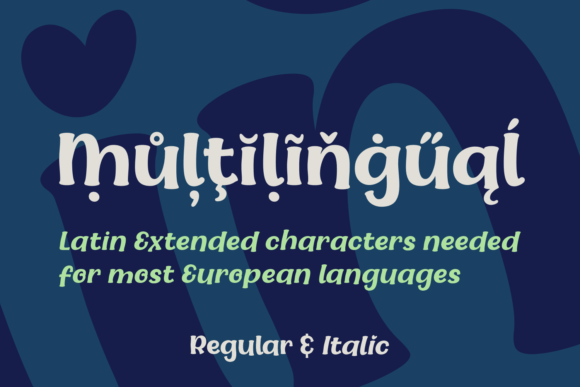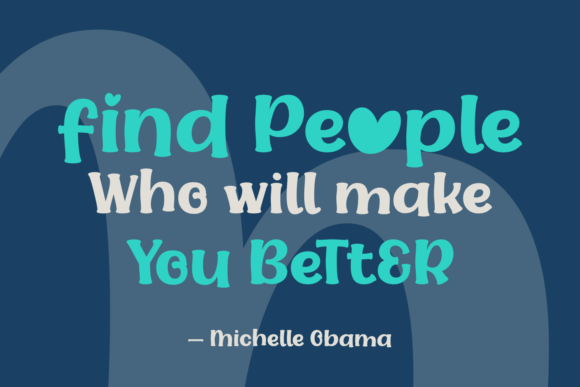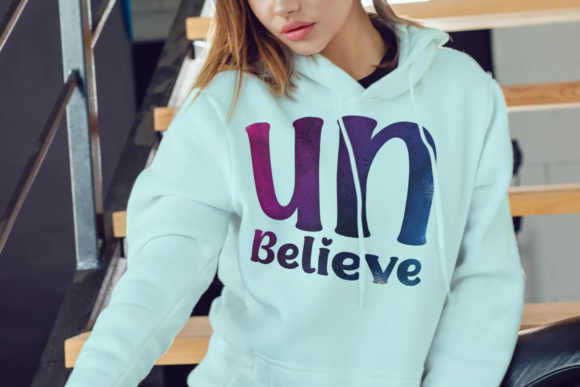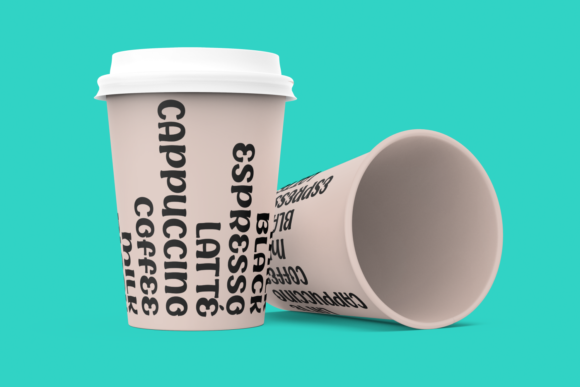
Jemy Molin Font
About Jemy Molin Font
Jemy Molin is a sweet and chunky charactered handwritten font. It embodies fun, quirkiness and authenticity. Get creative with its friendly style, and use it to brighten up any kids and school project!